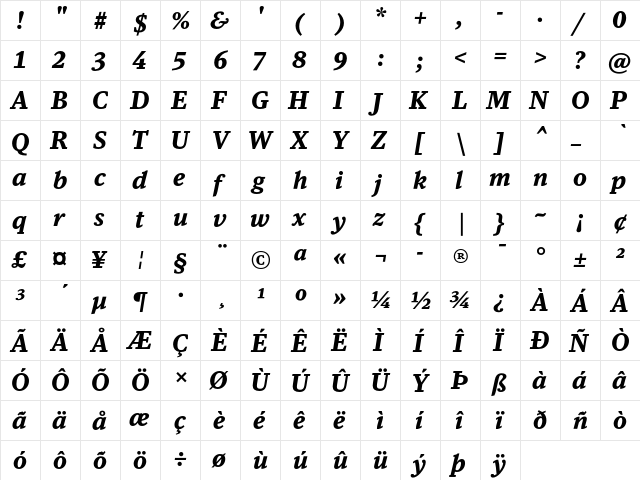
DB News TF Bold Italic
Design Context for DB News TF Typeface
DB News TF is a composed and adaptable typeface that performs quietly and consistently across a wide range of design contexts. The slanted form adds forward momentum and visual energy. Its bold stroke weight gives it real presence on the page.
Pro Tip: Try DB News TF for annotation and caption copy alongside an upright companion — the contrast in angle creates a dynamic but ordered typographic system.